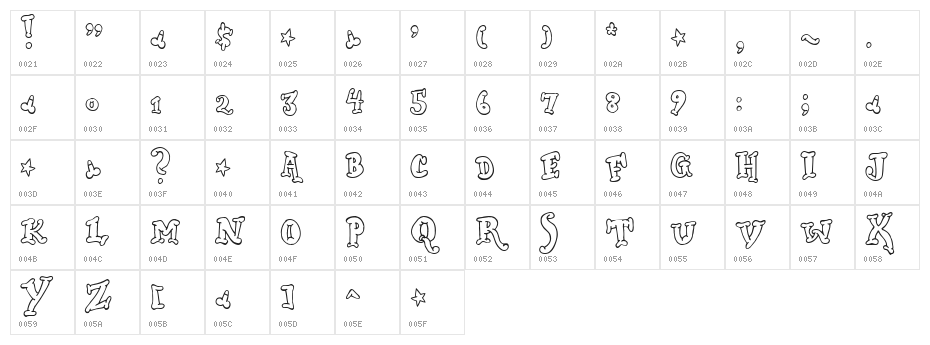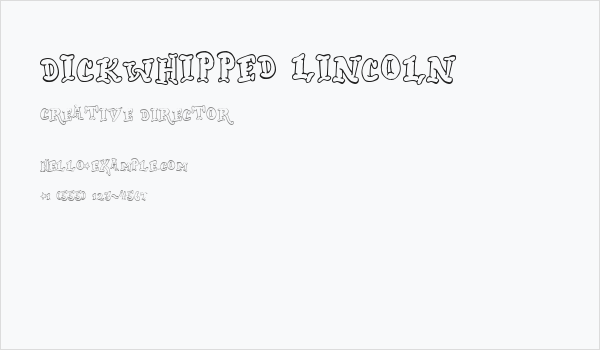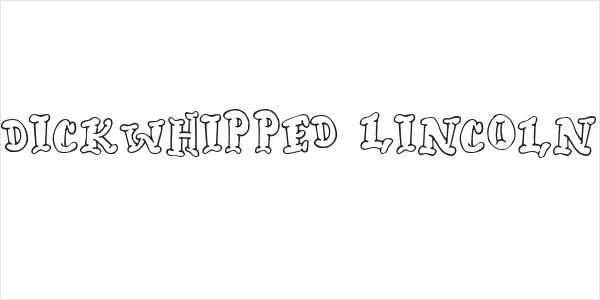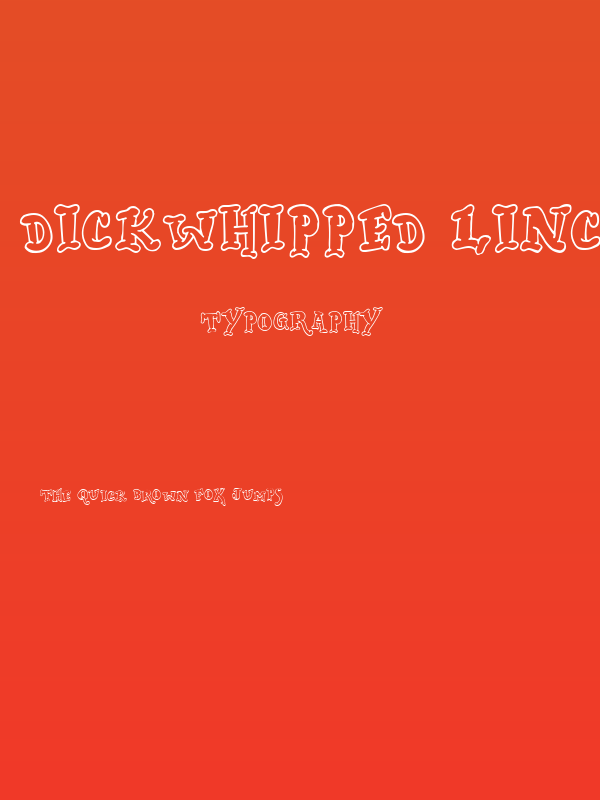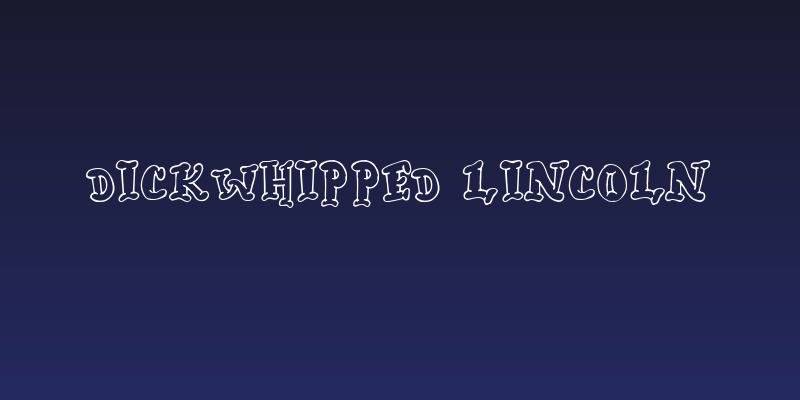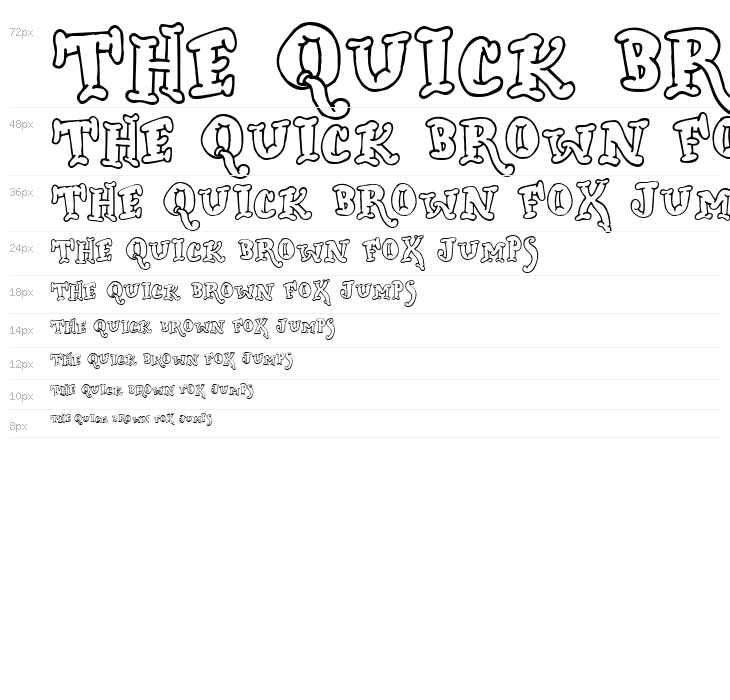
Dickwhipped Lincoln Font
Dickwhipped Lincoln Description
This font features a playful and whimsical design with bold, cartoonish outlines. Each character is uniquely styled with exaggerated serifs and a hand-drawn aesthetic, giving it a lively and dynamic appearance. The letters are slightly irregular, adding to the casual and fun vibe of the font. The numbers and special characters maintain this quirky style, making it suitable for creative and informal projects. The overall look is reminiscent of comic book lettering or a child's handwriting, making it ideal for projects that require a touch of humor and personality.
| Overall Style | Playful, Whimsical, Cartoonish |
| Proposed Projects | Ideal for children's books, comic strips, playful branding, and party invitations. |